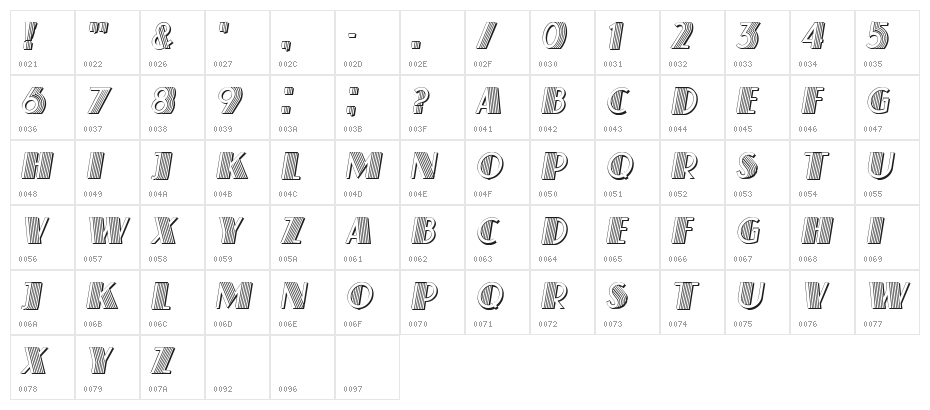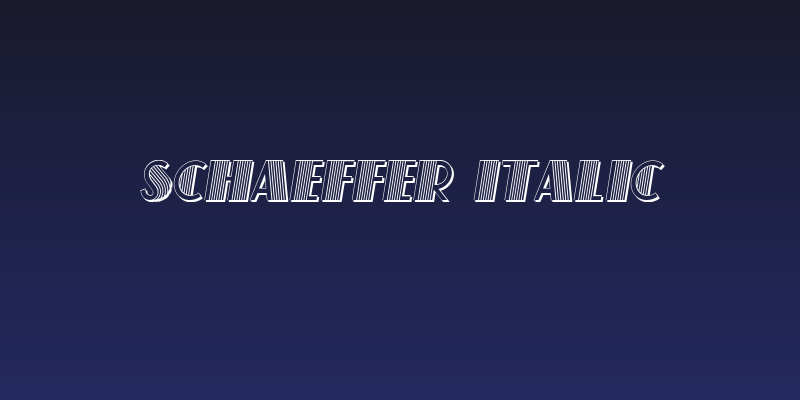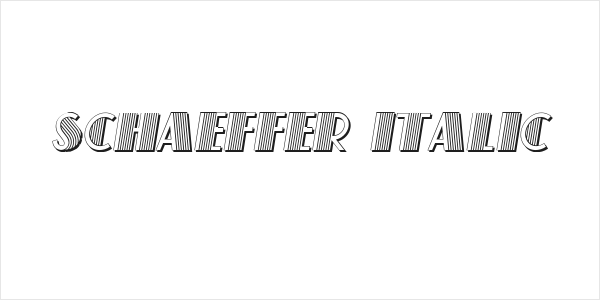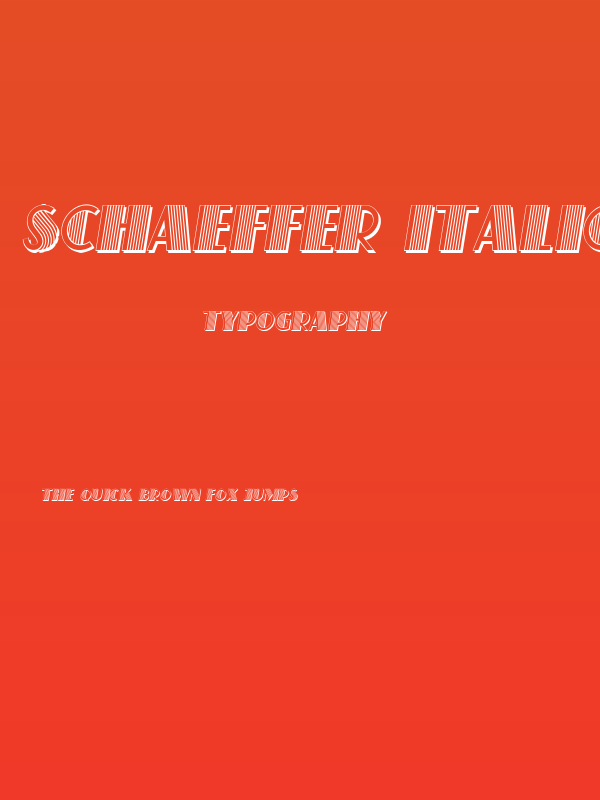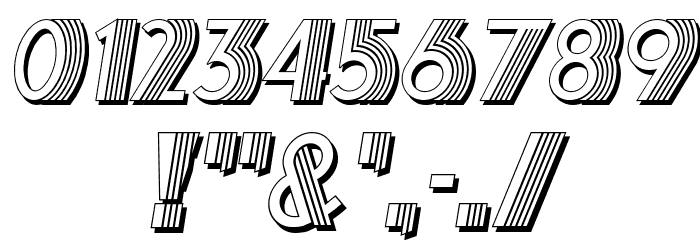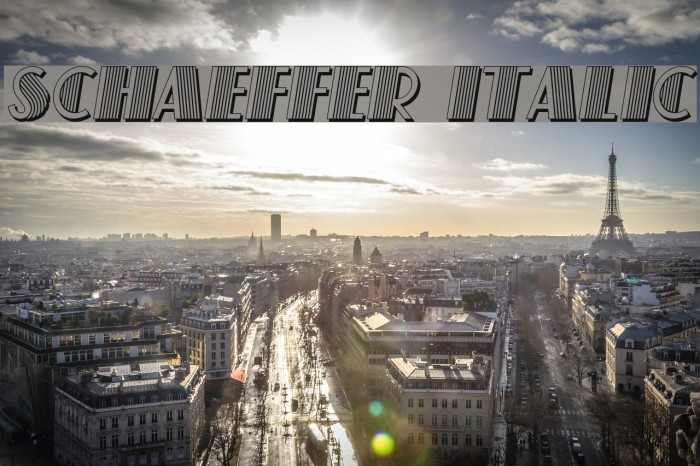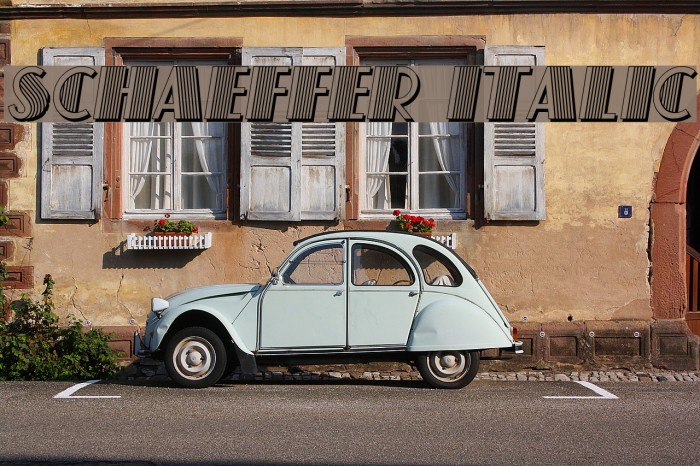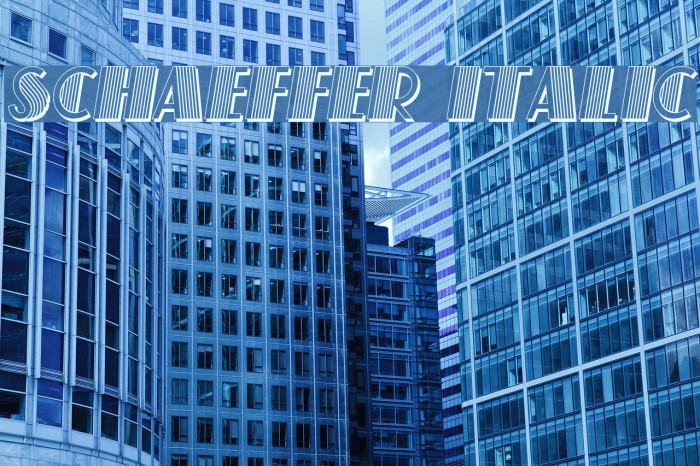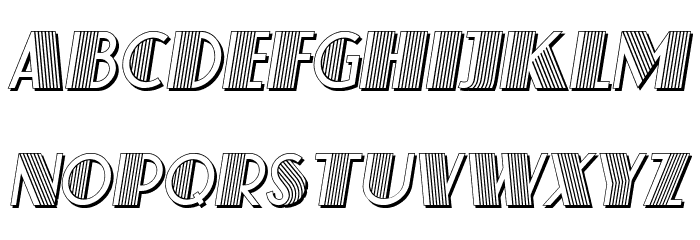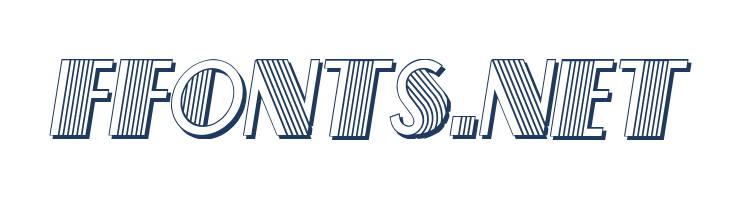
Schaeffer Italic Font
This font features a bold and dynamic design with a distinct italic slant. Each character is composed of multiple parallel lines, creating a striped effect that adds depth and dimension. The uppercase and lowercase letters maintain a consistent style, with sharp angles and clean lines. The numerals and special characters follow the same aesthetic, ensuring uniformity across all glyphs. This font's unique appearance makes it stand out, offering a modern twist on traditional typography.
| Proposed Projects | Ideal for eye-catching headlines, posters, branding, and creative design projects that require a modern and bold statement. |